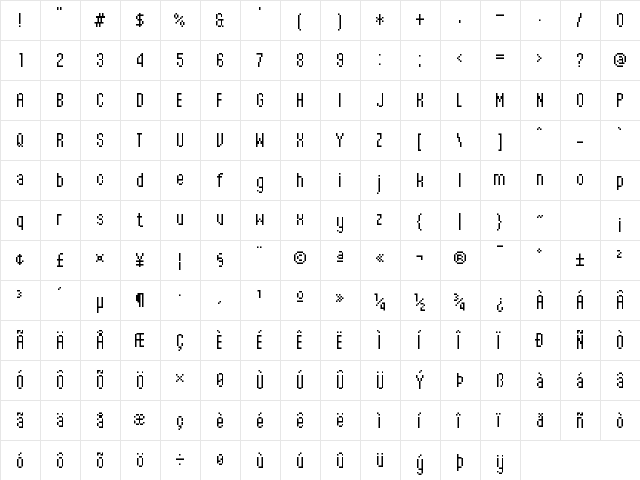
Readable 9x4 Regular Font Preview
Readable 9x4 Regular
Readable 9x4 Regular Font Details
| Designer | memesbruh03 |
Design Context for Readable 9x4 Typeface
Readable 9x4 is a composed and adaptable typeface that performs quietly and consistently across a wide range of design contexts.